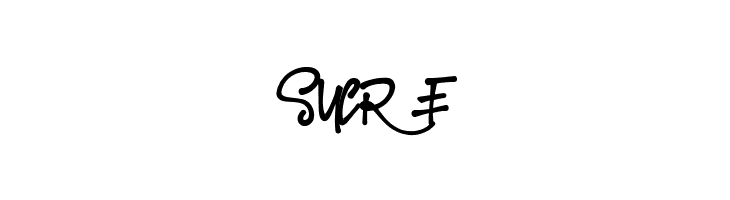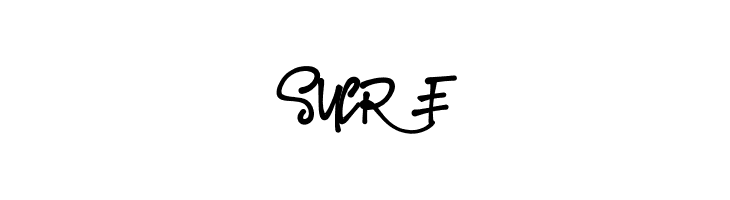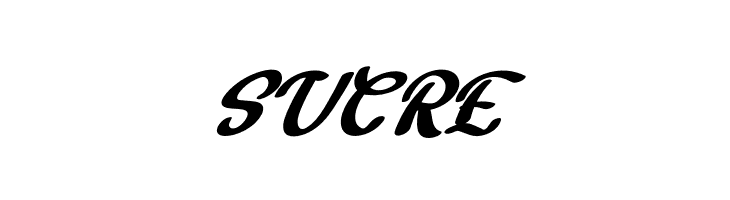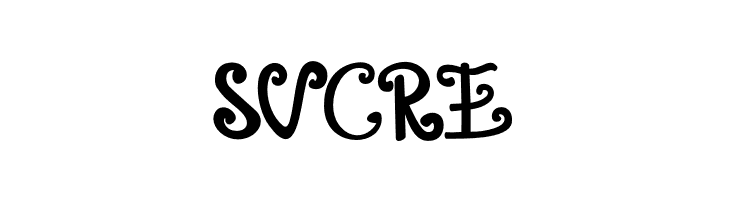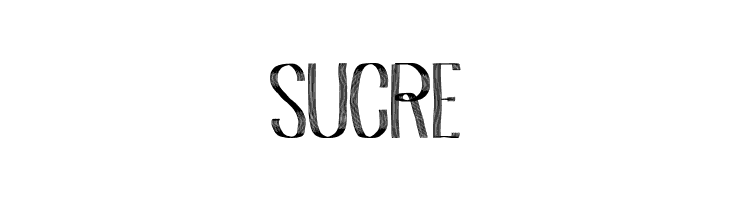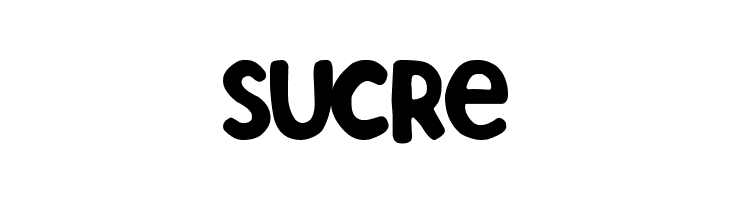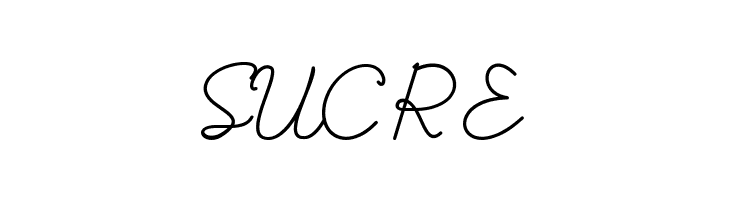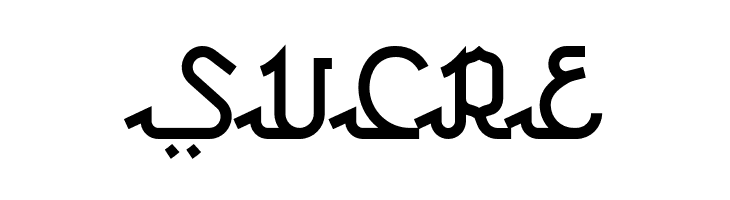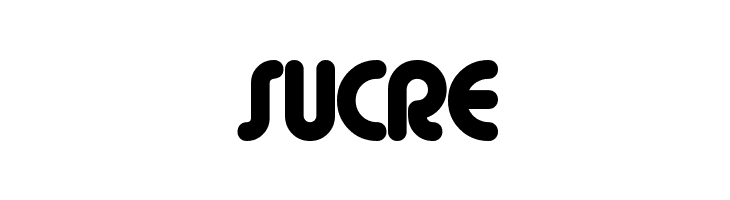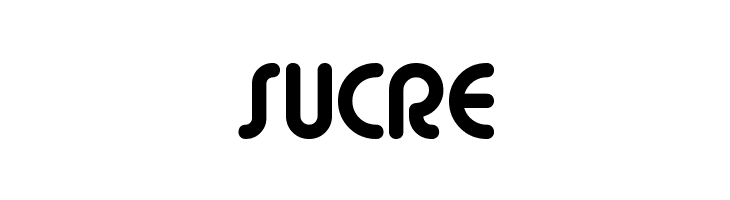
• Alaska Regular
A bold, modern font with a strong presence and slightly condensed style.
• Alaskan malamute
A lively and expressive handwritten font with fluid strokes and artistic flair.
• ALASKANA
A bold and dynamic font with elegant, slightly condensed uppercase letters and flowing lowercase characters.
• Alaskano Free Regular
A bold, playful font with rounded, thick strokes and a whimsical style.
• AlaskaScriptDemo
A playful, flowing script font with a handwritten style and medium contrast.
• Alaskia
A playful, whimsical font with bold, hand-drawn characters.
• Alata Regular
A modern, geometric sans-serif font with clean lines and even strokes.
• Alatas Script
• AlAtharaSabilReguler
A bold, geometric font with Middle Eastern architectural influences.
• Alatsi Regular
A modern, geometric sans-serif typeface with clean lines and balanced proportions.
• Alaymen Personal Use
A bold, elegant script font with flowing, cursive letterforms.
• Alayna Hughes
A playful and elegant script font with flowing, cursive letterforms.
• Alayska
An elegant script font with flowing, cursive letterforms and high contrast strokes.
• Alazne Light
A thin, elegant sans-serif font with a modern, minimalistic style.
• Alba
A bold, rounded font with a playful and modern aesthetic.
• Alba Matter
A bold, rounded font with a playful and modern aesthetic.
• Alba Super
A bold, playful font with rounded, bubble-like characters and outlined edges.
• Albacete team
A bold, playful font with rounded edges and a bubbly appearance.
A playful and elegant script font with flowing, cursive letters.
• Albanian
• Albanian Olive Monogram 1
An elegant and decorative font with intricate swirls and flourishes.
• Albanian Olive Monogram 2
An ornate, floral-decorated font ideal for elegant and artistic projects.